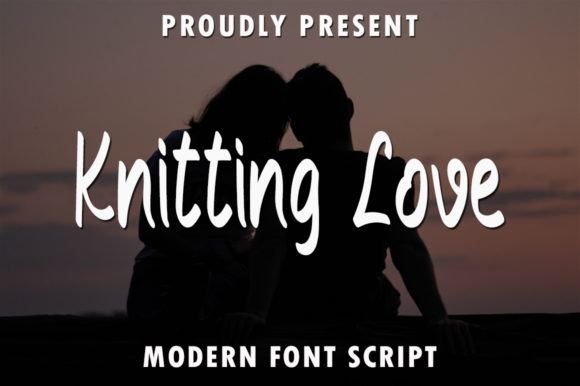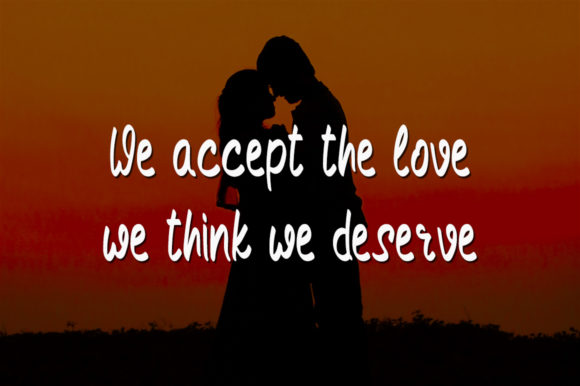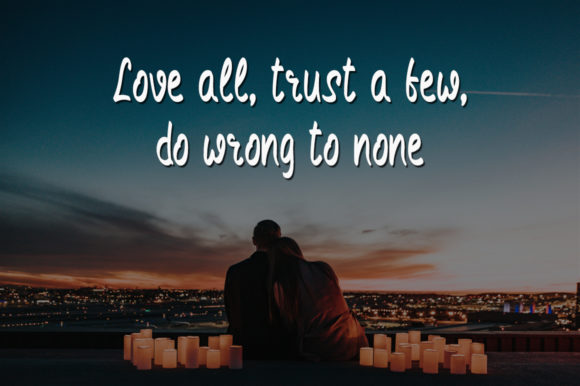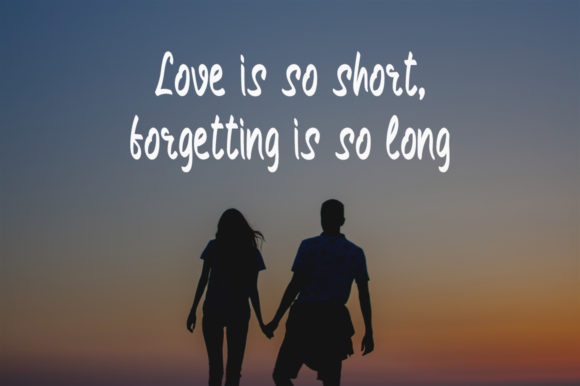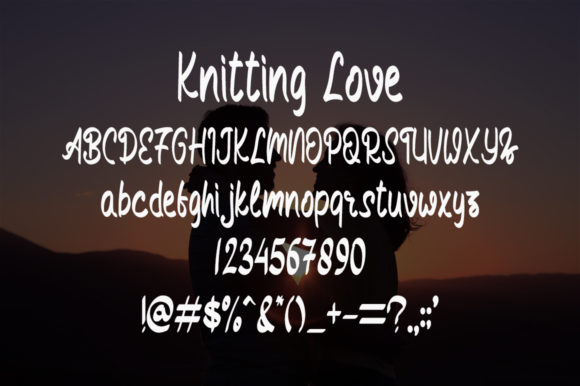
Knitting Love Font
About Knitting Love Font
Knitting Love is a casual and charming handwritten font that brings a cozy and crafty vibe to your designs. With its relaxed and versatile style, this font is perfect for a wide range of creative projects, from letterheads and titles to stationery and more.
The versatility of Knitting Love allows you to use it in various design applications. Whether you’re creating personal or business letterheads, designing titles for your blog or website, or crafting custom stationery, this font adds a warm and handcrafted touch to your projects.
The casual and handwritten style of Knitting Love creates an inviting and approachable feel, making it suitable for a range of themes and purposes. It can be used for crafting heartfelt messages, DIY project titles, knitting or crafting blogs, and other craft-related designs. The organic nature of the font adds a touch of authenticity and handmade charm to your creations.
With Knitting Love, you have the flexibility to experiment with different colors, textures, and layouts. This font works well with rustic or cozy color palettes, evoking the feeling of warmth and comfort. You can also pair it with other design elements such as illustrations, yarn or knitting-related icons, or decorative accents to create a cohesive and visually appealing composition.
Knitting Love is designed to be legible and readable, ensuring that your text stands out and conveys your message effectively. Whether you’re using it for headlines, body text, or captions, the clarity of this font will make your content easily understandable.
In summary, Knitting Love is a casual and versatile handwritten font that adds a cozy and crafty touch to your designs. Its flexibility makes it suitable for various crafty ideas, from letterheads and titles to stationery and beyond. Let your creativity flow and embrace the handmade charm of Knitting Love in your next project!